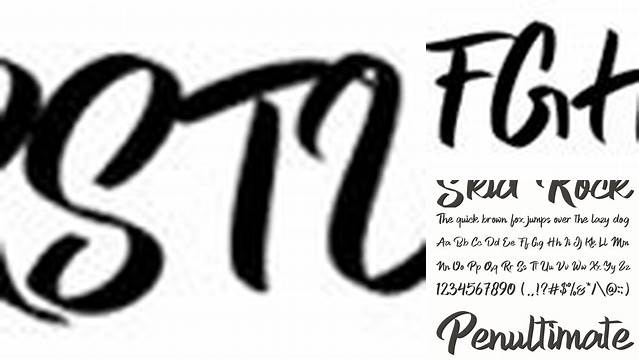
Hey guys! Ever stumbled upon a font that just screams cool? Something that’s both rugged and stylish, perfect for giving your designs that extra edge? Well, let's talk about Skid Rock Regular font! This font has been making waves in the design world, and for good reason. It’s versatile, eye-catching, and can really make your projects pop. In this article, we’re diving deep into everything you need to know about Skid Rock Regular, including where you can snag it for free.
What is Skid Rock Regular Font?
Skid Rock Regular is more than just a typeface; it's a statement. Imagine a font that embodies the raw energy of rock and roll, combined with a touch of urban grit. That’s Skid Rock Regular in a nutshell. It's characterized by its bold, slightly distressed appearance, making it ideal for designs that need to convey strength, rebellion, or a vintage vibe. Think about the kind of font you'd see plastered on a band's album cover, a skate park poster, or even a craft brewery's label – that’s the kind of territory Skid Rock Regular excels in.
Its unique aesthetic comes from a combination of thick, uneven strokes and a subtly textured surface. This gives the font a hand-drawn feel, as if it were painstakingly crafted with ink and brush. The irregular edges and slight imperfections add to its charm, making it stand out from more polished and sterile fonts. It’s this authenticity that draws designers to Skid Rock Regular, offering a way to inject personality and character into their work.
Whether you’re working on a logo design, a poster, a website header, or even social media graphics, Skid Rock Regular can be a game-changer. It's particularly effective when paired with contrasting elements, such as clean, minimalist backgrounds or vibrant, saturated colors. The font's inherent boldness ensures it remains legible even at smaller sizes, while its distinctive style makes it instantly recognizable.
But what really sets Skid Rock Regular apart is its ability to evoke emotion. The font's edgy, rebellious spirit can instantly connect with audiences who appreciate authenticity and individuality. It's a font that tells a story, hinting at a world of underground music, street art, and counter-culture movements. By using Skid Rock Regular in your designs, you're not just choosing a font; you're choosing to communicate a specific message and attitude.
Why Choose Skid Rock Regular?
So, why should you specifically choose Skid Rock Regular font for your projects? There are tons of fonts out there, so what makes this one special? Let's break it down:
- Versatility: Despite its bold style, Skid Rock Regular is surprisingly versatile. It works well in a variety of contexts, from edgy branding to eye-catching headlines. Its unique texture adds depth and character, making it suitable for both digital and print designs.
- Impact: This font makes a statement. Its strong, assertive letterforms command attention, ensuring your message gets noticed. It’s perfect for designs that need to stand out from the crowd and leave a lasting impression.
- Authenticity: In a world of overly polished designs, Skid Rock Regular offers a refreshing dose of authenticity. Its hand-drawn feel and subtle imperfections give it a human touch, making your designs feel more personal and relatable.
- Readability: While it’s certainly a display font, Skid Rock Regular maintains a decent level of readability, especially at larger sizes. This makes it suitable for headlines, titles, and other prominent text elements.
Consider these points, you can create a very attractive design with rock nuances and bring the message conveyed in the design to the audience.